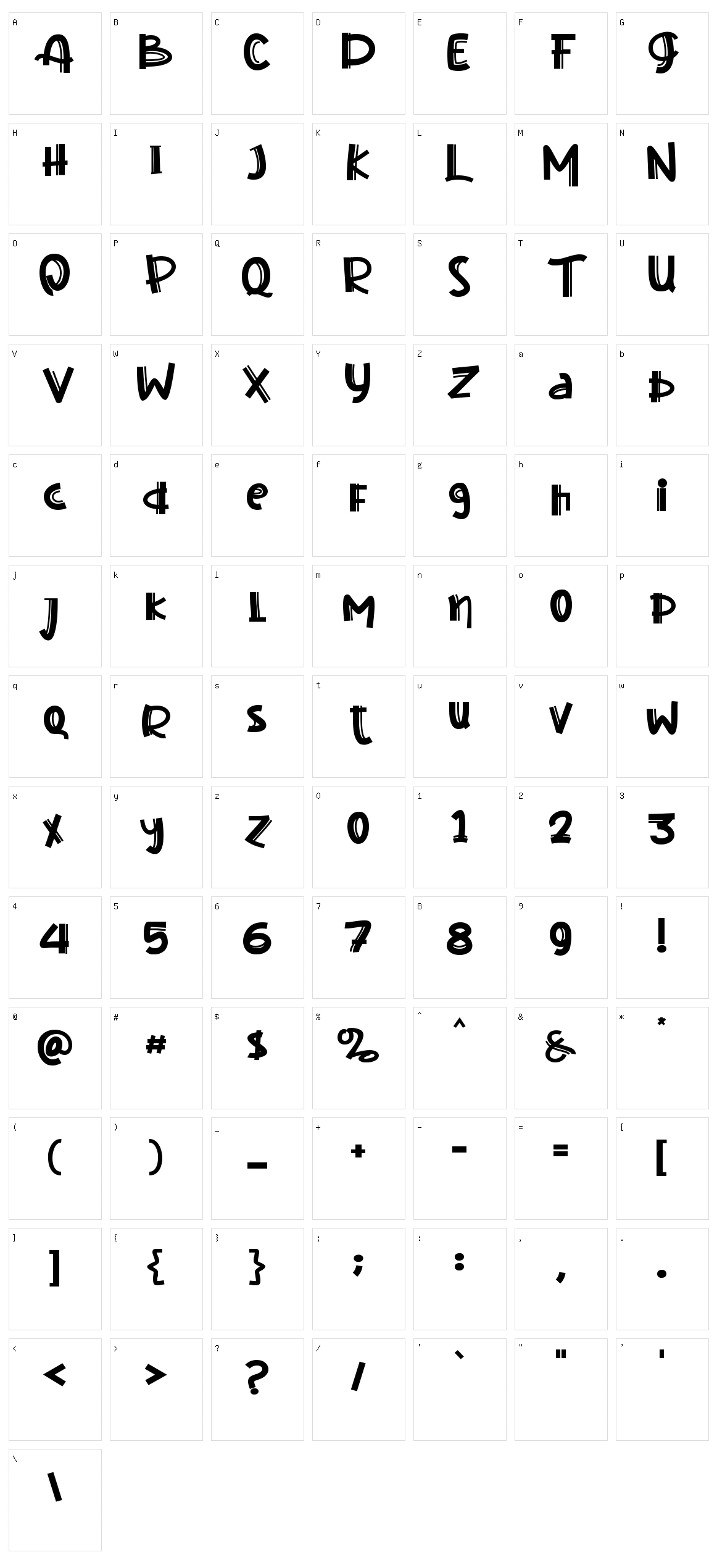
The free font Sweet Husky is carefully designed by Letterara, showcasing a thoughtful balance of creativity and usability and falls under the Cartoon font style. When you download the ZIP file, it contains only 327.58 KB of font files, making it lightweight and quick to download. Please review the license details below to understand permitted usage and distribution rights. If license information is not available, we recommend using this font for personal projects only or contacting the author directly for commercial usage permissions.